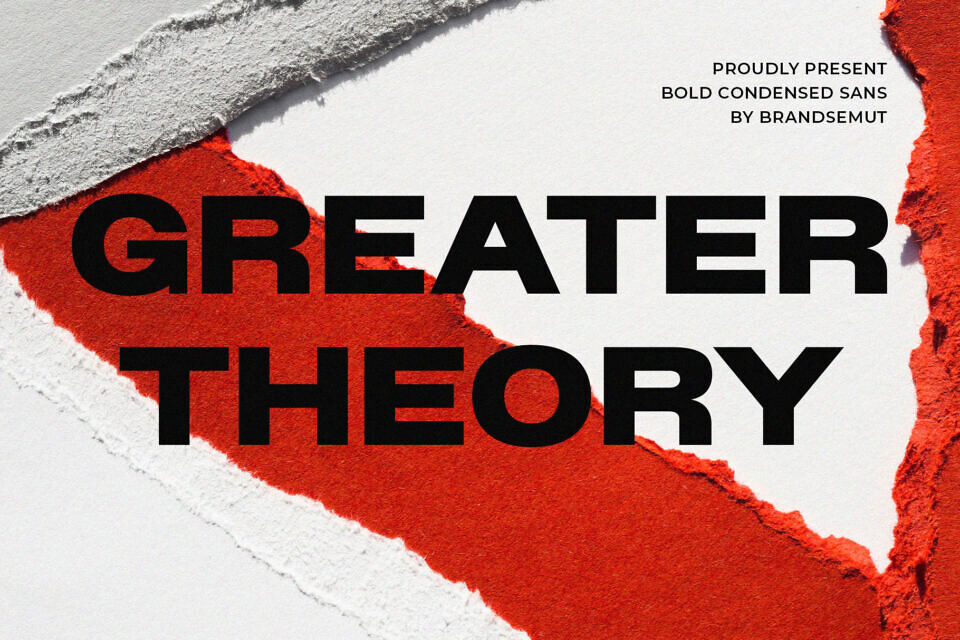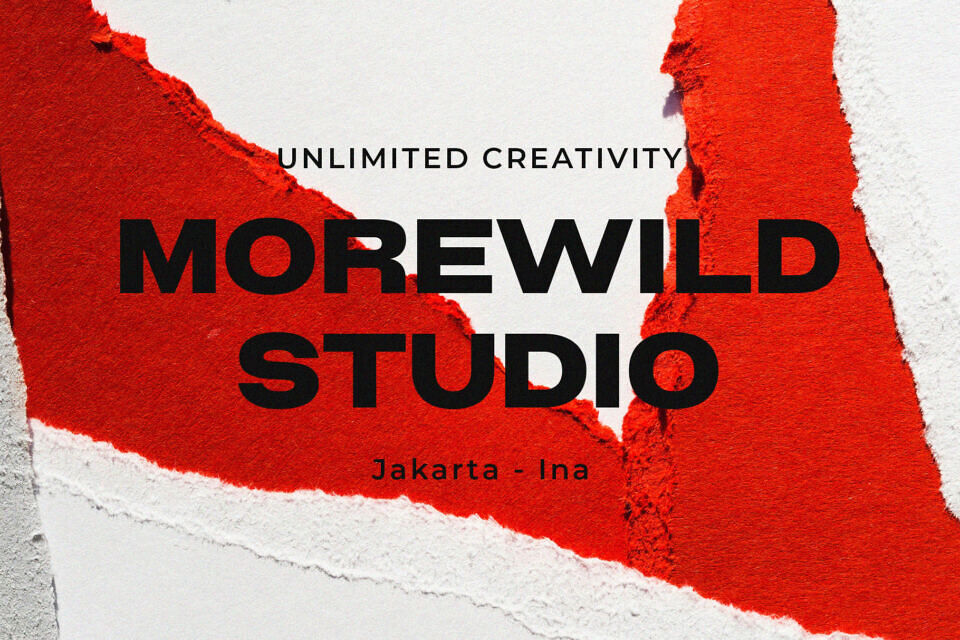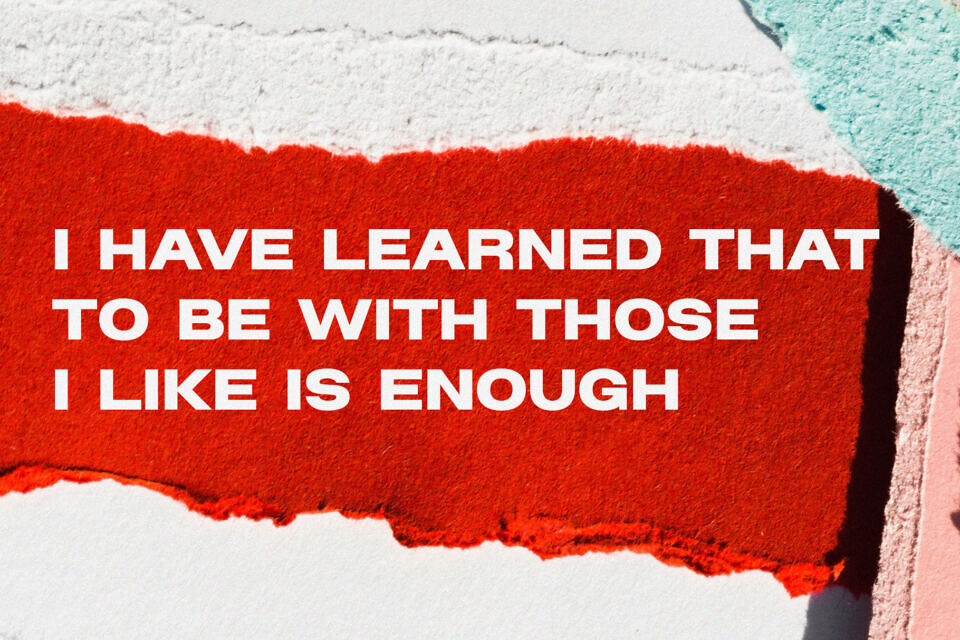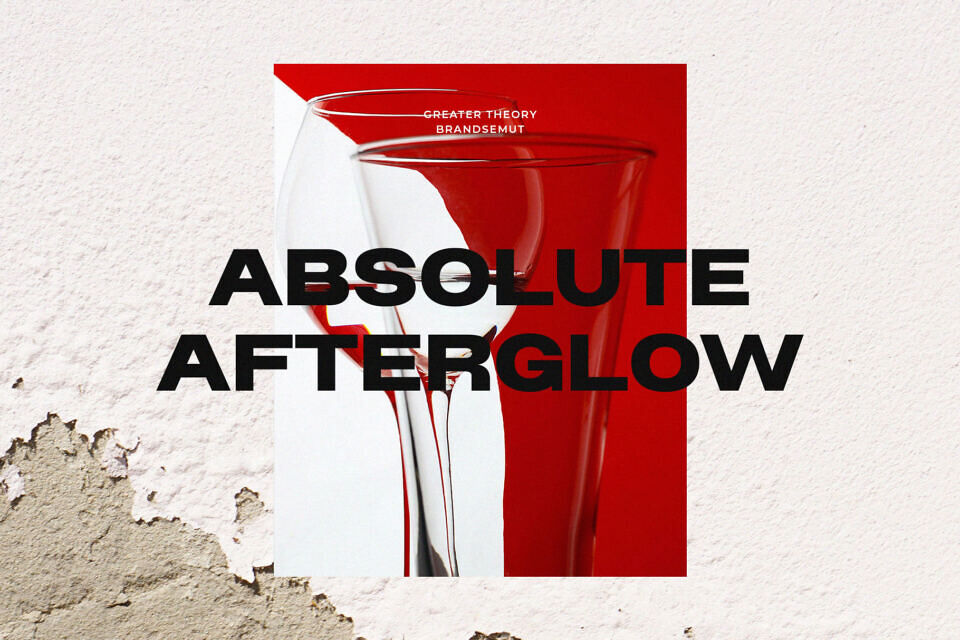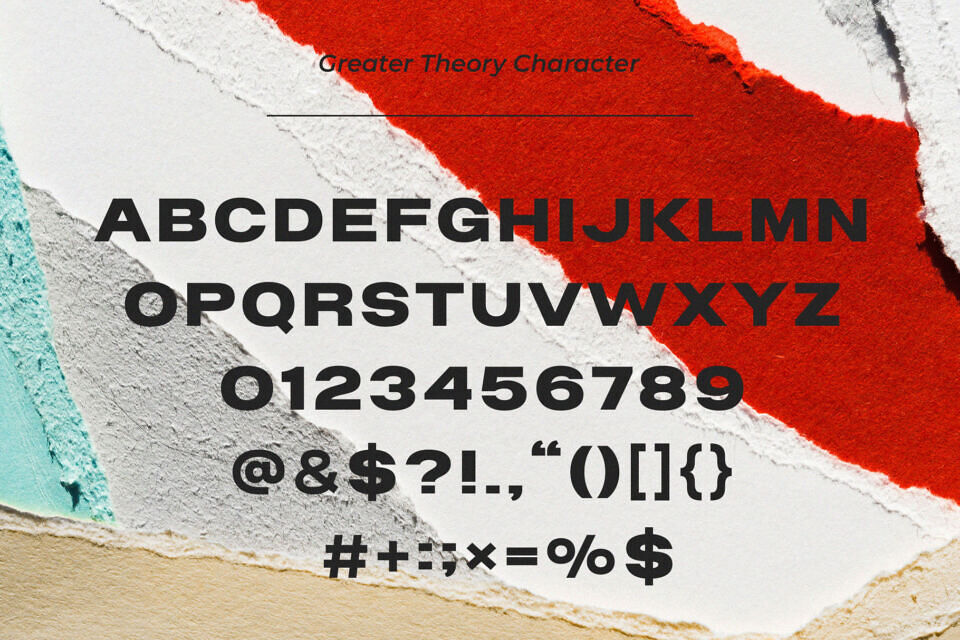
Greater Theory is a sleek, contemporary serif font that perfectly balances classic elegance with modern minimalism. Designed with clean lines, high contrast, and refined curves, it exudes a sophisticated and luxurious vibe.
Ideal for editorial design, branding, high-end packaging, and editorial layouts, Greater Theory brings a touch of timeless class and distinct personality to any creative project.